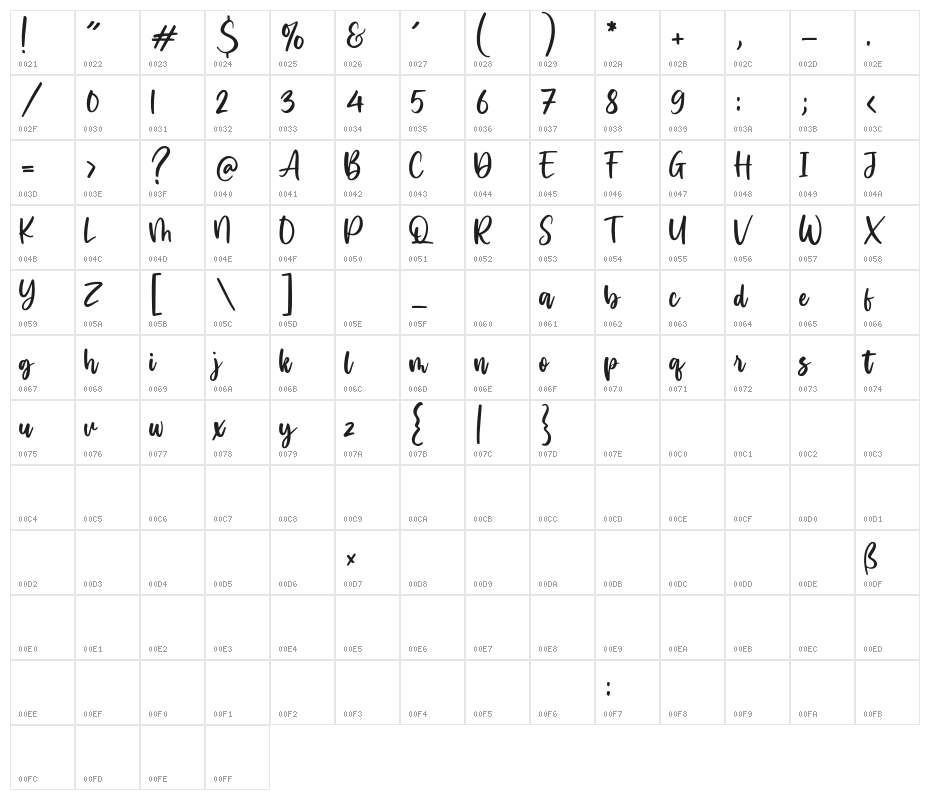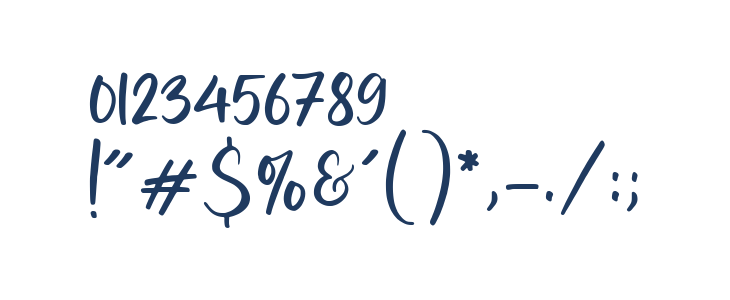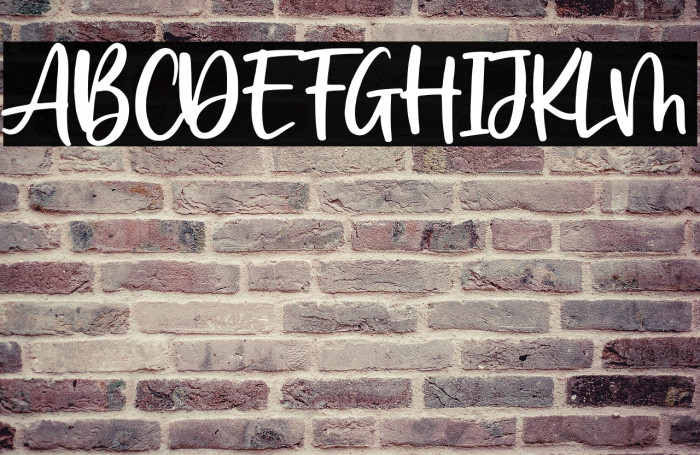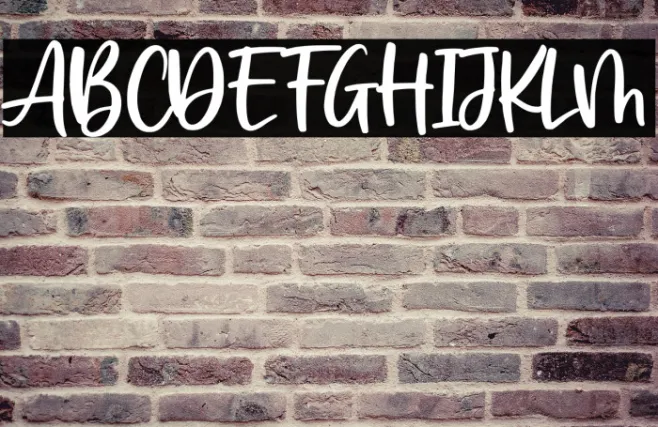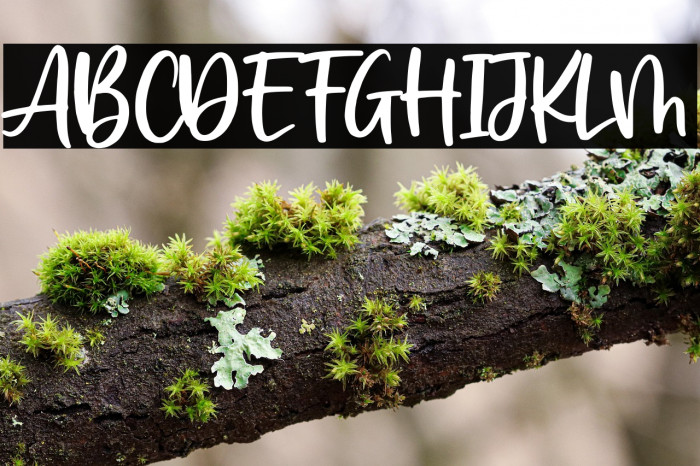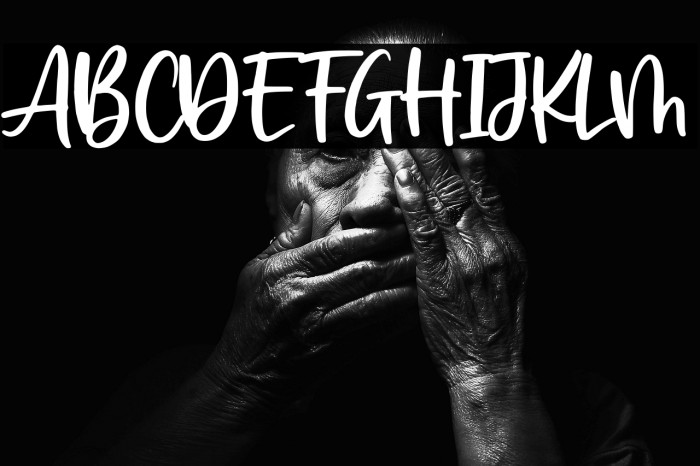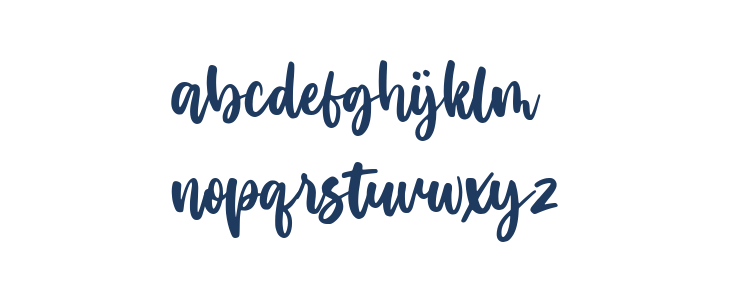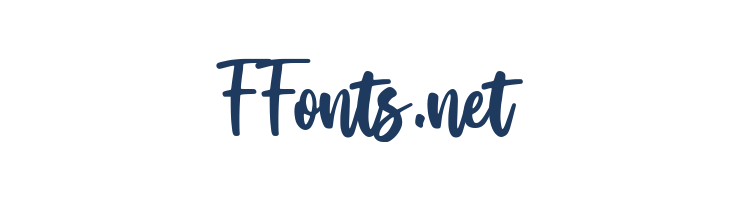
Perfect Island Font
Perfect Island Description
This font features a lively and playful script style, characterized by its fluid and connected letterforms. The uppercase letters are bold and slightly elongated, giving a sense of movement and energy. The lowercase letters maintain a consistent flow, with rounded edges and a casual, handwritten feel. Numbers and special characters are designed to match the overall aesthetic, ensuring a cohesive look across all text. The font's informal and friendly appearance makes it ideal for creative projects that require a personal touch.